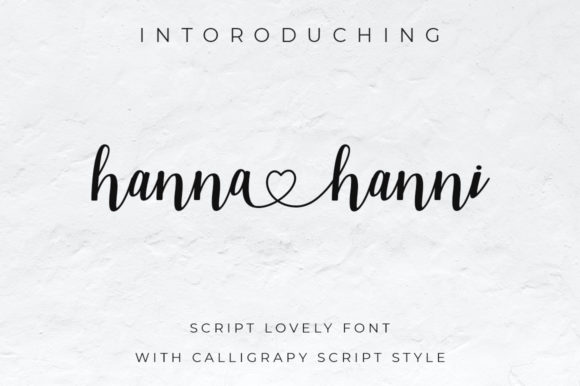
Journey into the world of Hanna Hanni, a script font family that will captivate your designs with its delicate, elegant, and flowing charm. Experience the beauty of well-balanced characters that dance harmoniously across your creative visions. Discover a font that seamlessly blends with a diverse range of projects, adding an enchanting touch to every word and letter.
Embrace the power of Hanna Hanni, a font that will transform your creative ideas into captivating masterpieces. Witness the magic unfold as this font breathes life into your designs, captivating your audience with its graceful curves and elegant lines. Dive into a world of limitless possibilities, where Hanna Hanni elevates your designs to new heights.
Unlock the true potential of Hanna Hanni, a font meticulously crafted for effortless creativity. Its PUA encoding grants you easy access to a treasure trove of glyphs and swashes, empowering you to unleash your artistic flair like never before. Experience the freedom to explore a vast repertoire of characters, adding intricate details and unique flourishes to your designs.